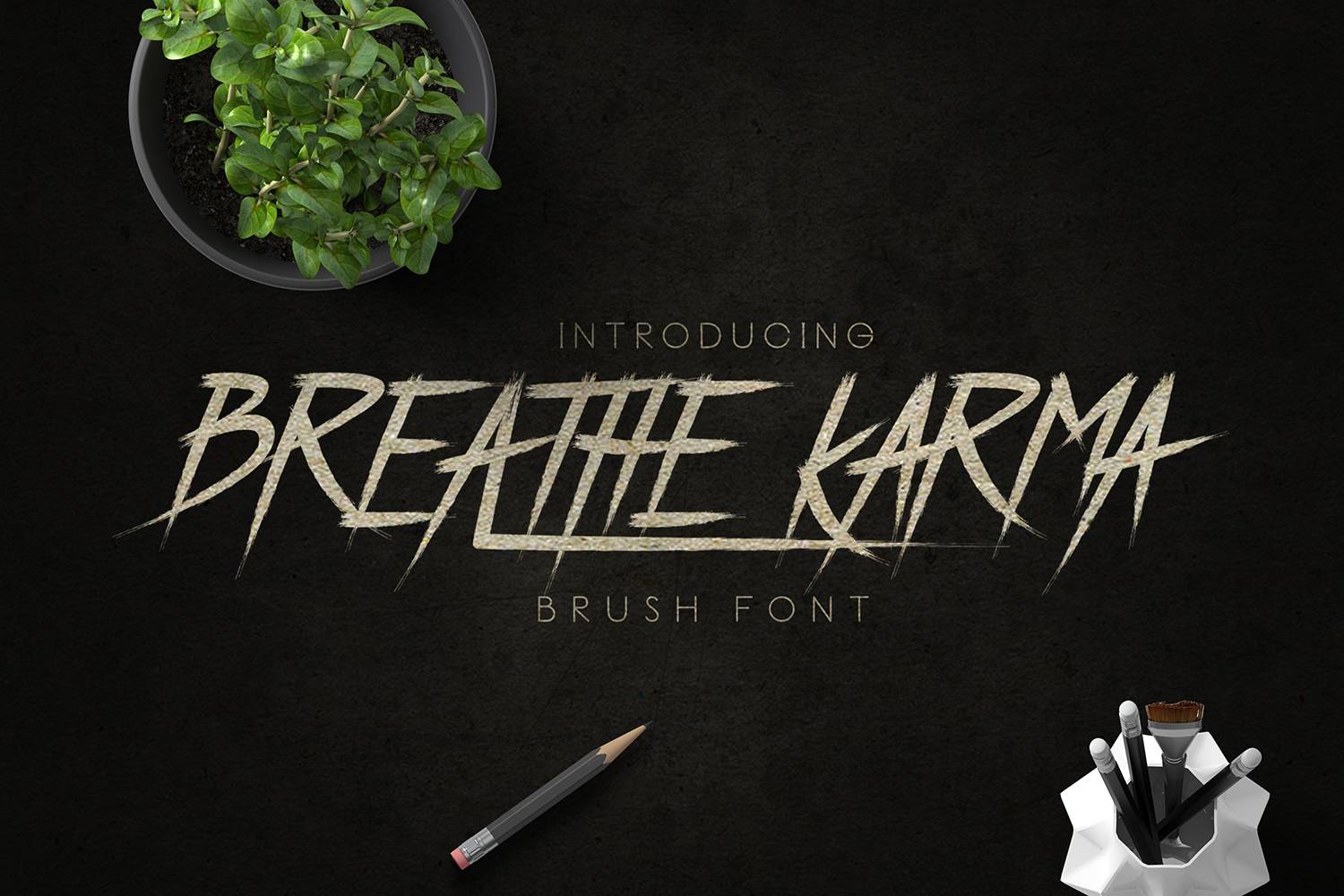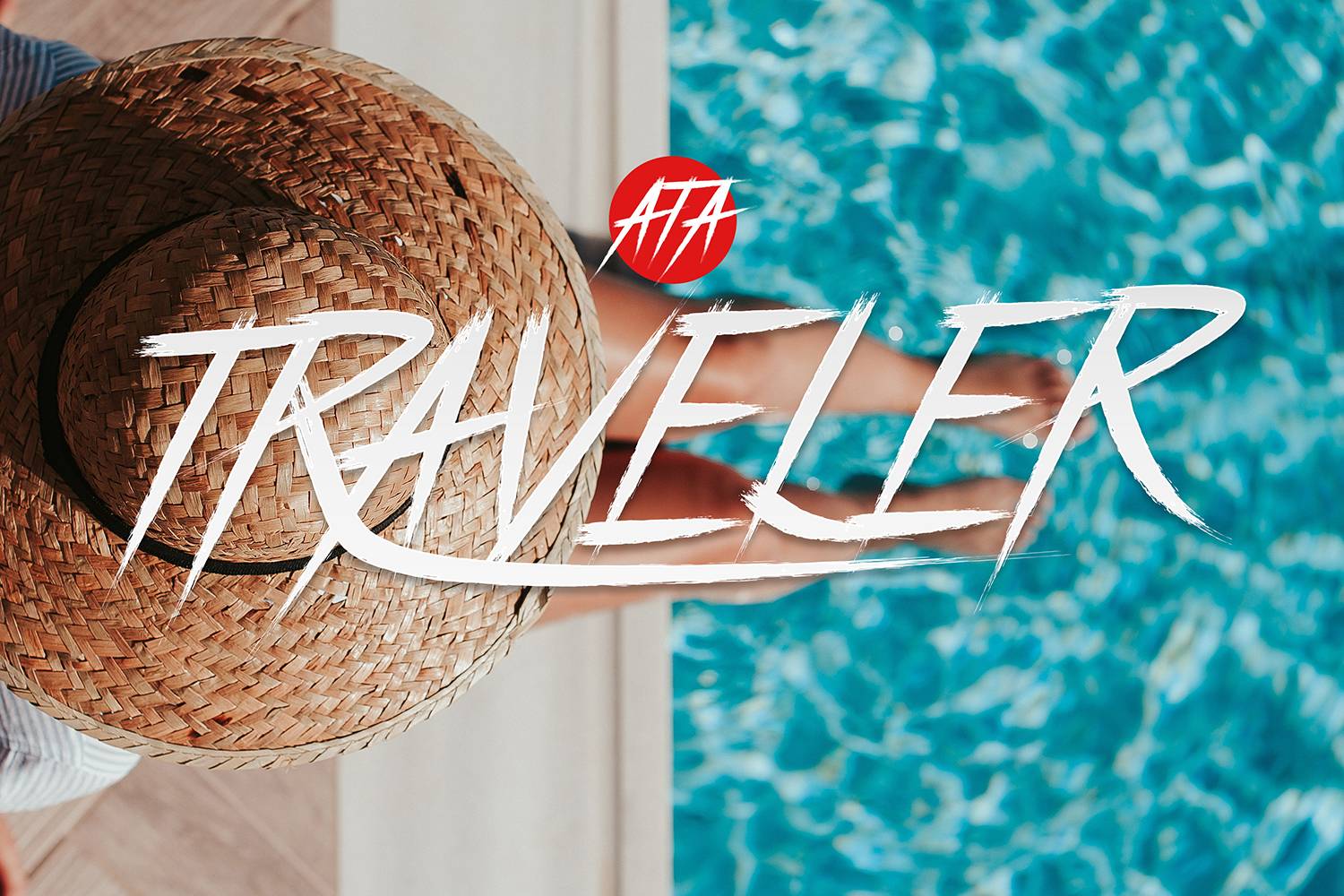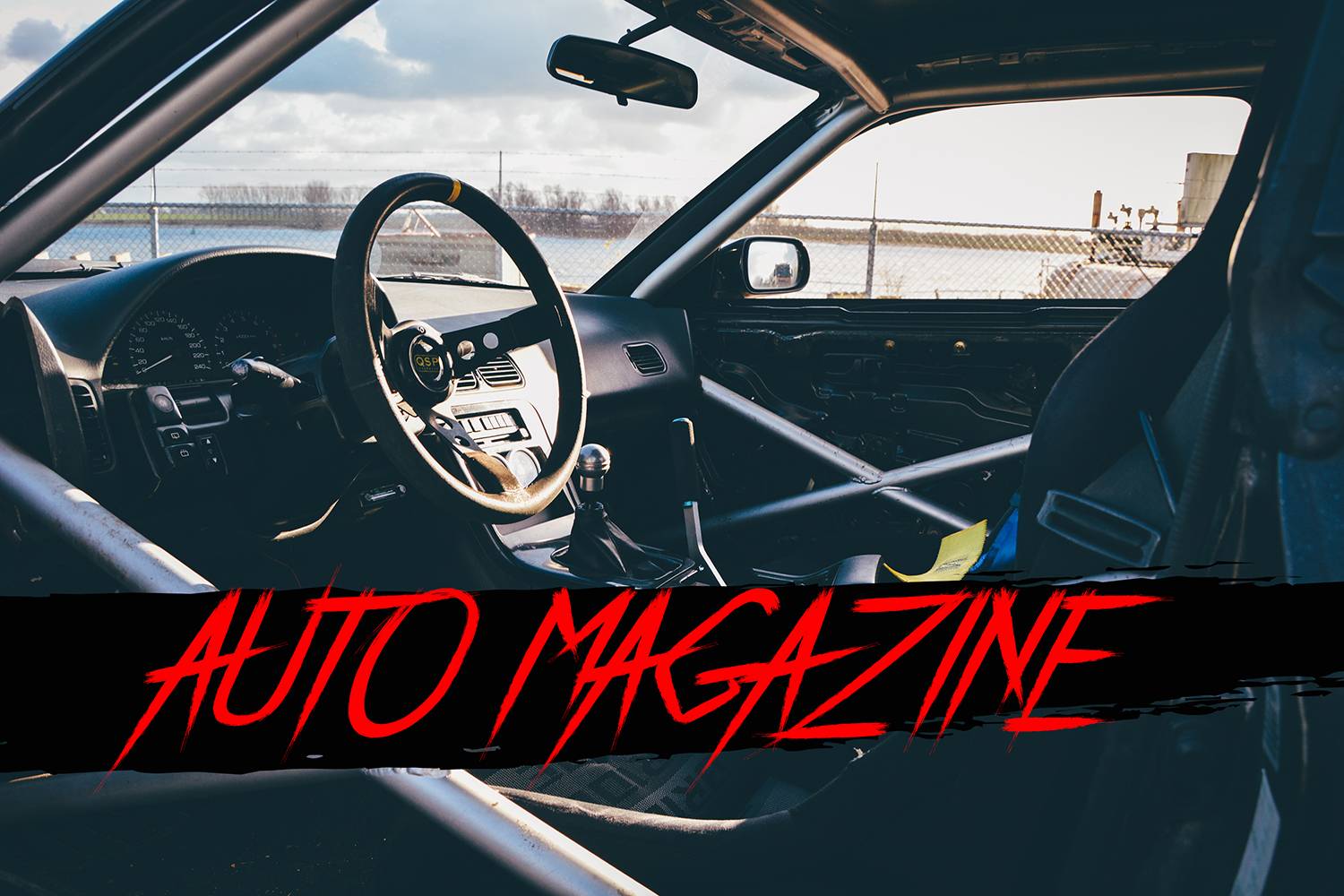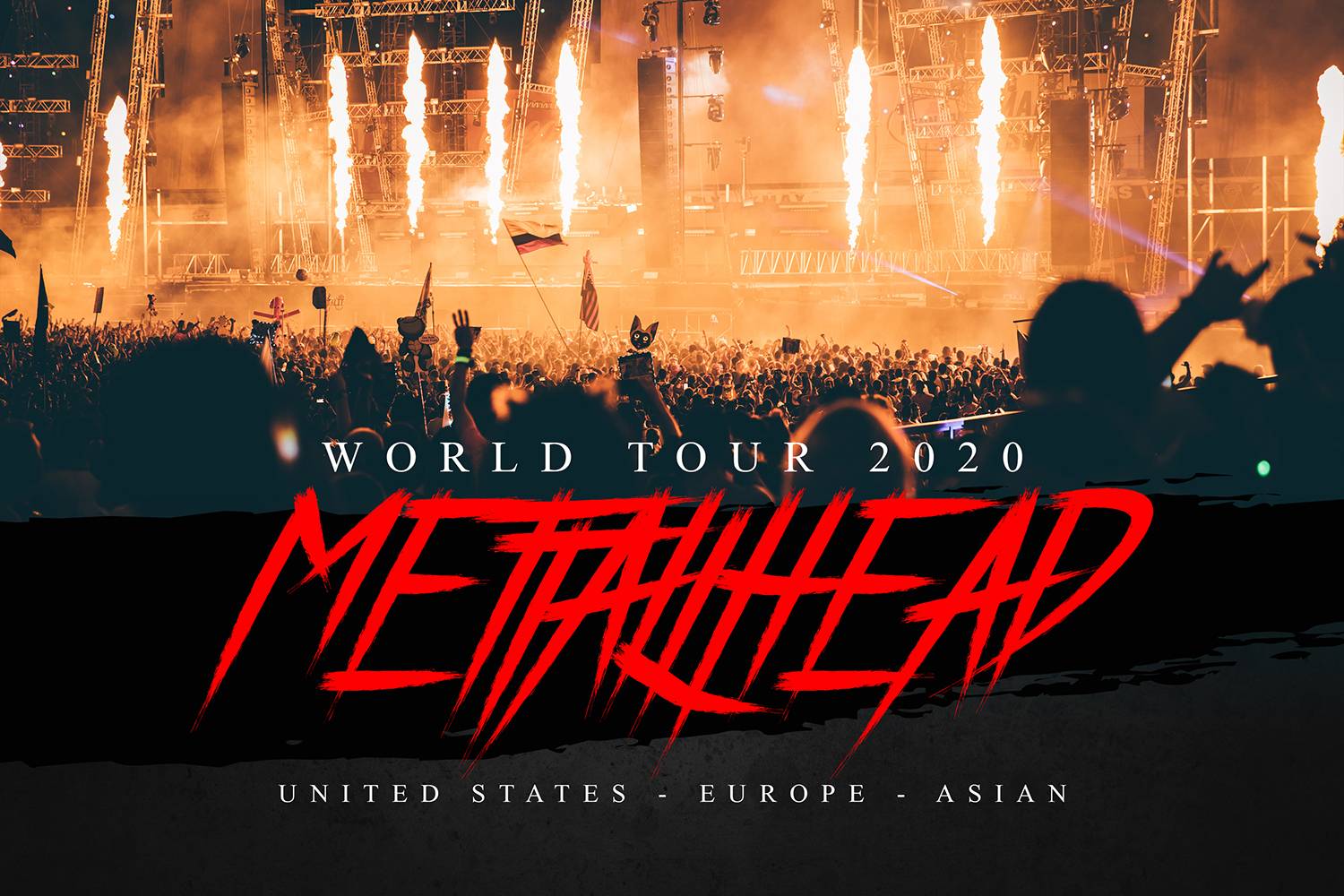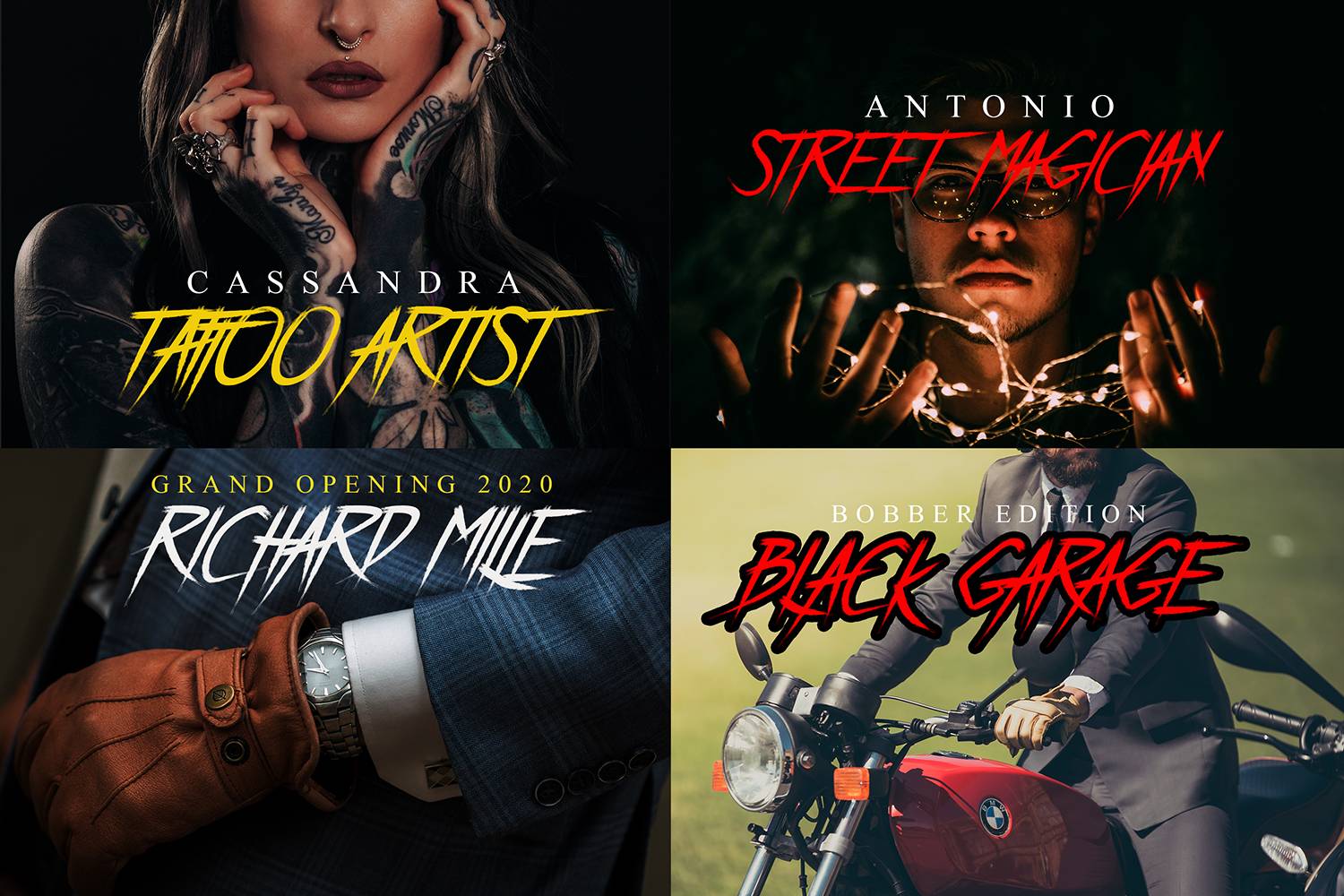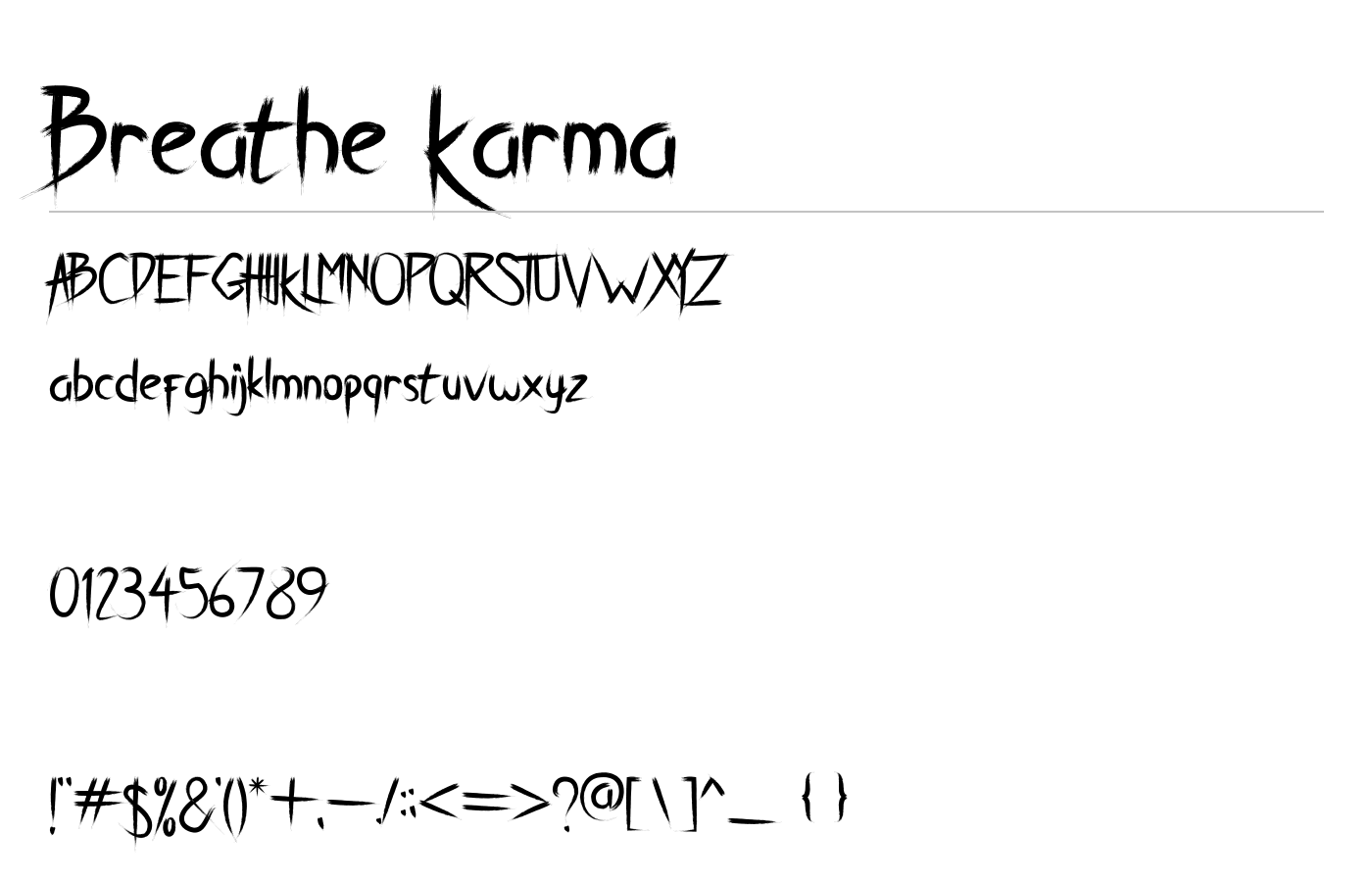
Breathe Karma is a unique, hand-drawn sans serif font with a playful yet slightly edgy vibe, characterized by its narrow, tall letterforms and rough, brush-like strokes. Its casual, organic style makes it perfect for creative projects that want to stand out with a modern, artistic flair, such as posters, branding for alternative or artistic brands, and eye-catching headlines. This font works well where a personal, expressive touch is needed to convey energy and individuality.
Breathe Karma Font
About Breathe Karma Font